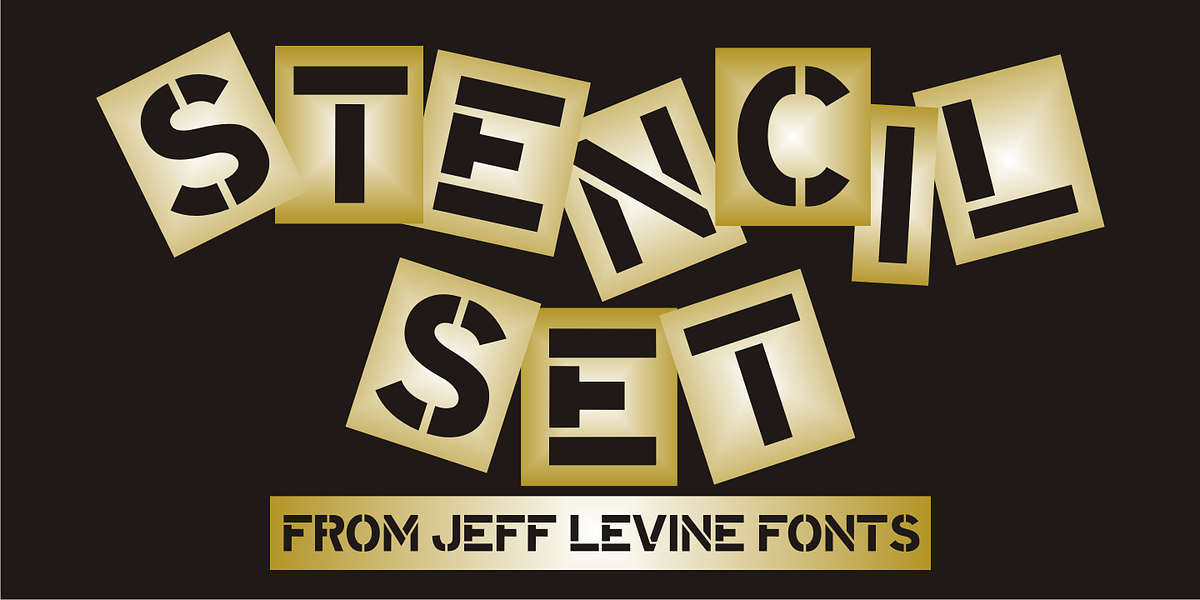
Stencil Set JNL
Stencil Set JNL takes the 2011 release of <a href="/fonts/jeff-levine/stencil-mark-jnl/">Stencil Mark JNL</a> (a spur-serif letter based on a vintage set of brass stencils) and transitions it to the design of a clean, bold sans typeface.